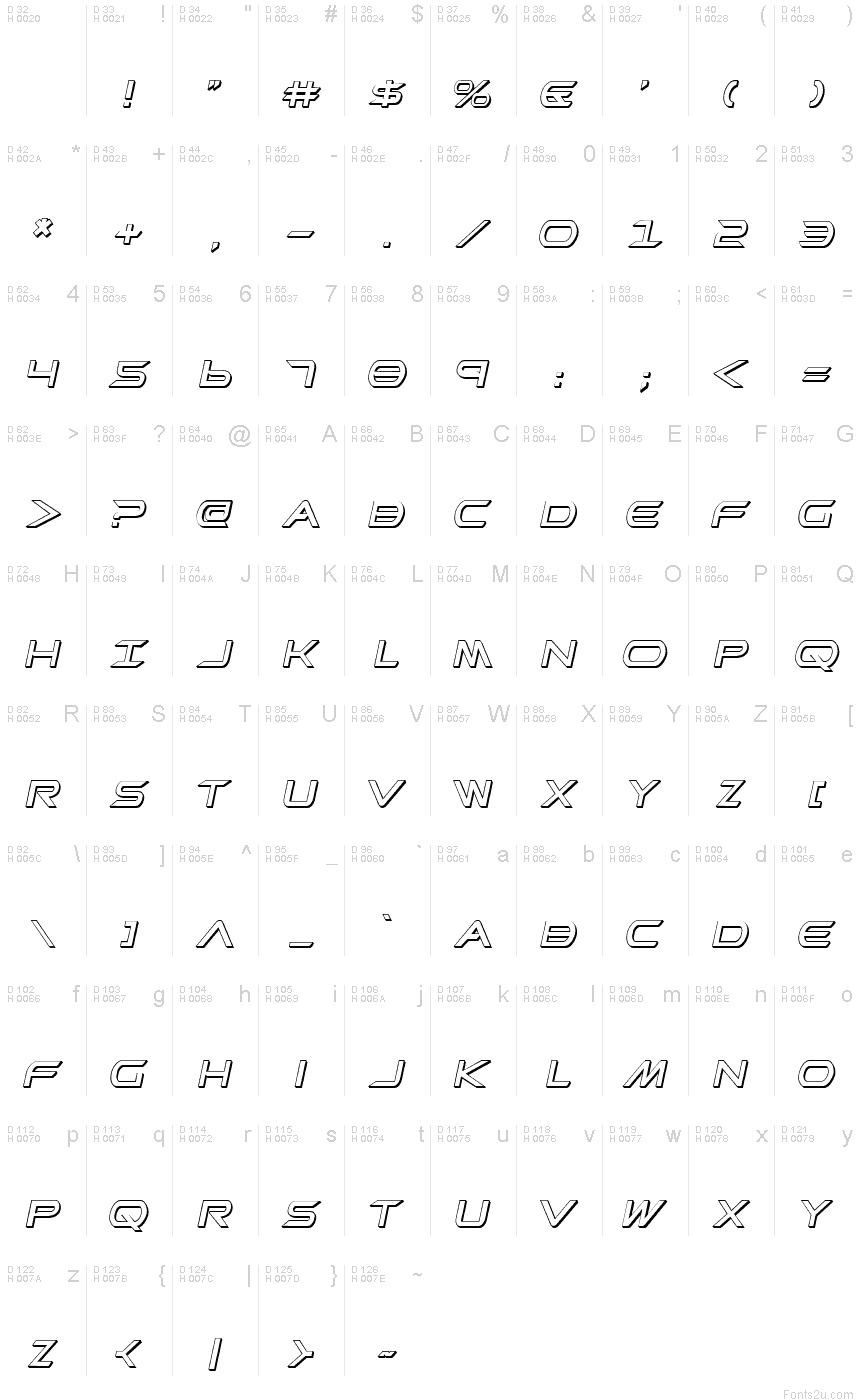
Promethean Shadow Italic by Daniel Zadorozny of Iconian Fonts is a free futuristic outlined display font with a fast, engineered profile. Broad caps lean forward, combining smooth outer curves with sharp diagonal cuts. A narrow inner line gives the strokes a layered, aerodynamic finish.
Technology and motorsport themes make it a convincing choice for game branding, racing posters, and electronic music artwork. Across these uses, the slanted forms and streamlined detailing suggest speed, machinery, and a sleek science-fiction setting.